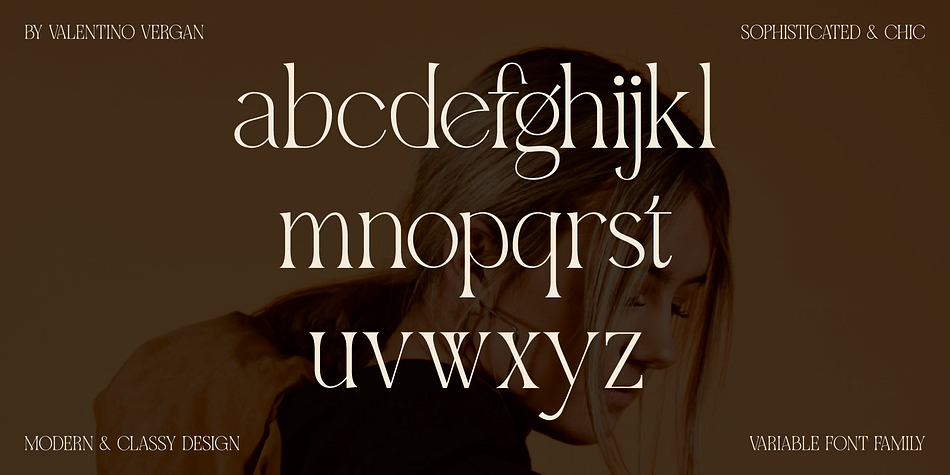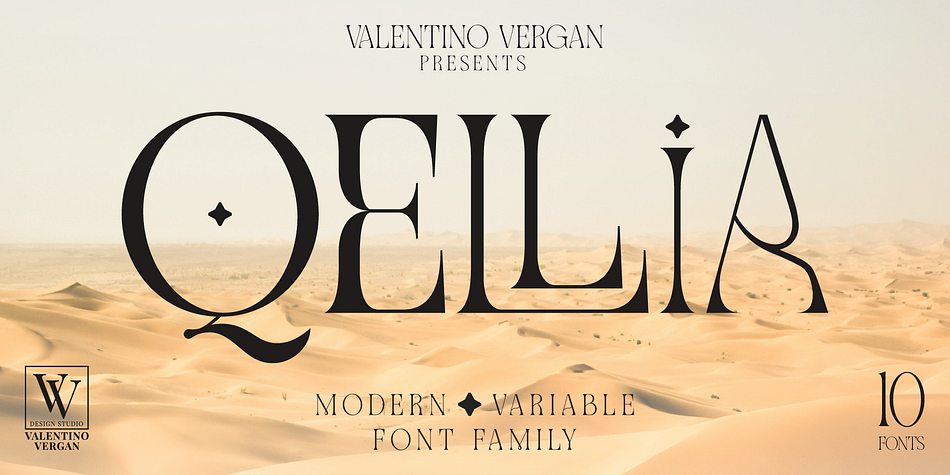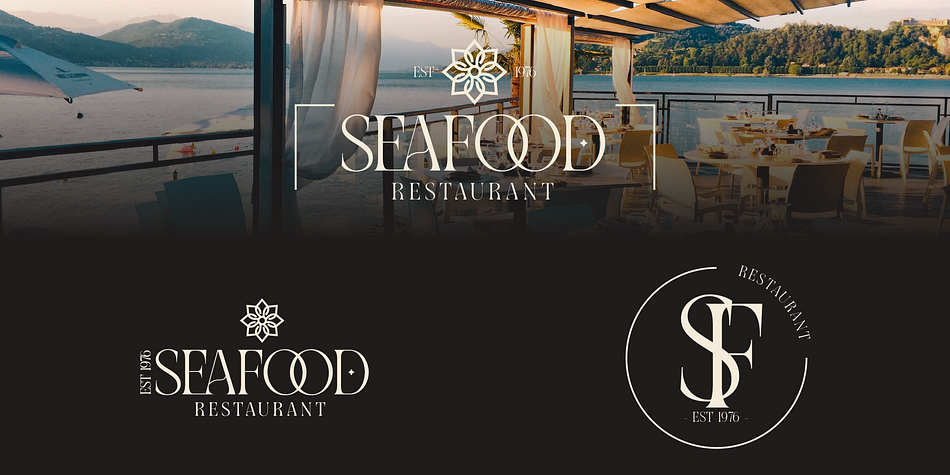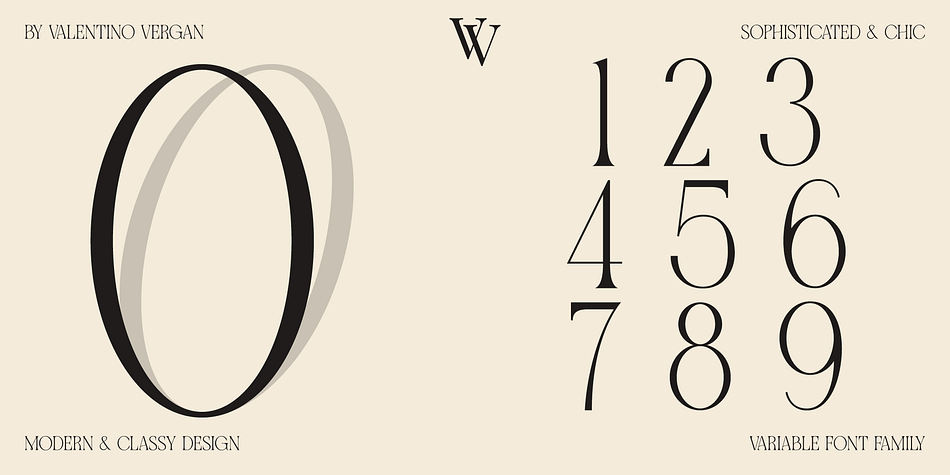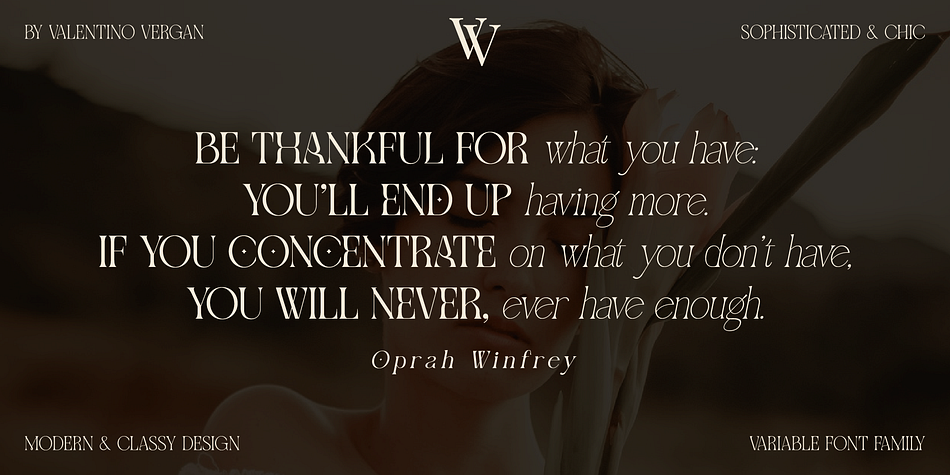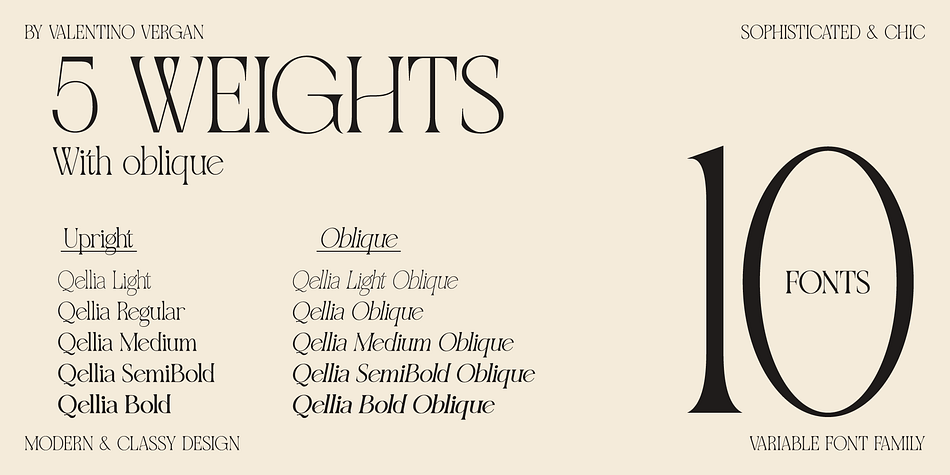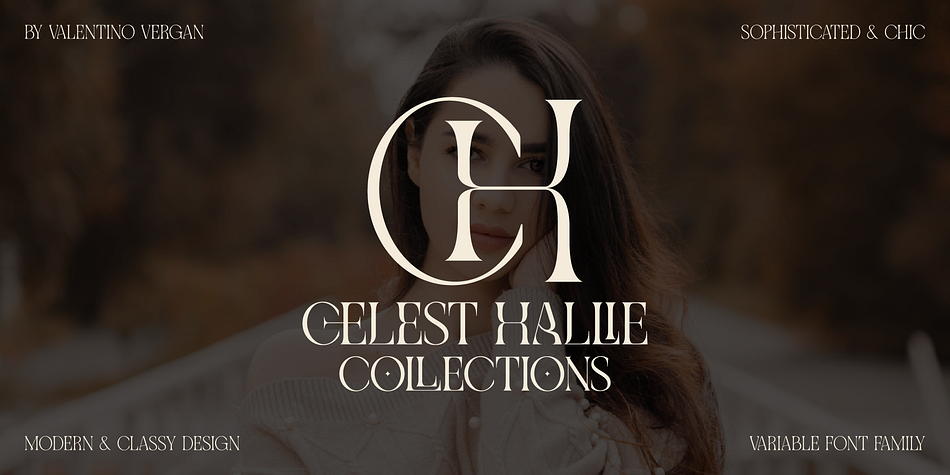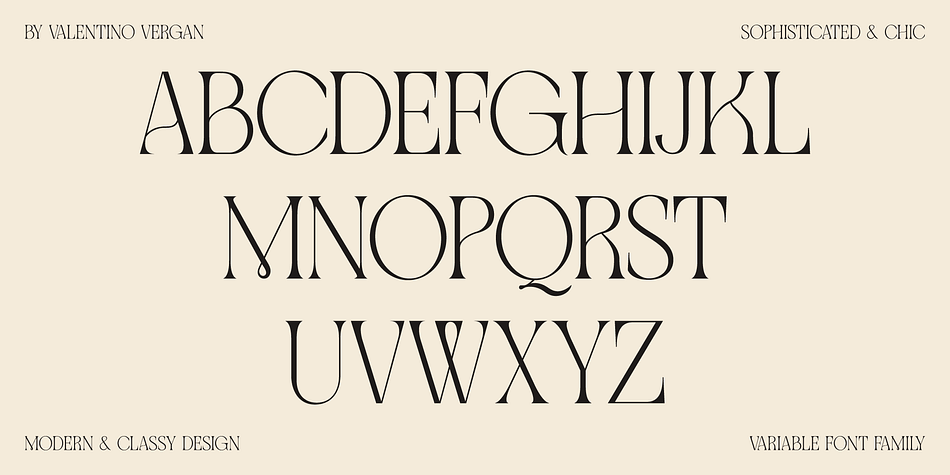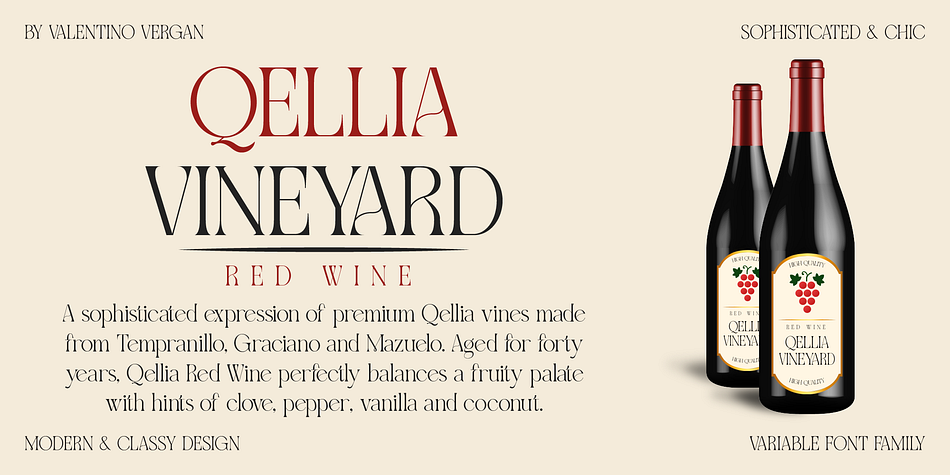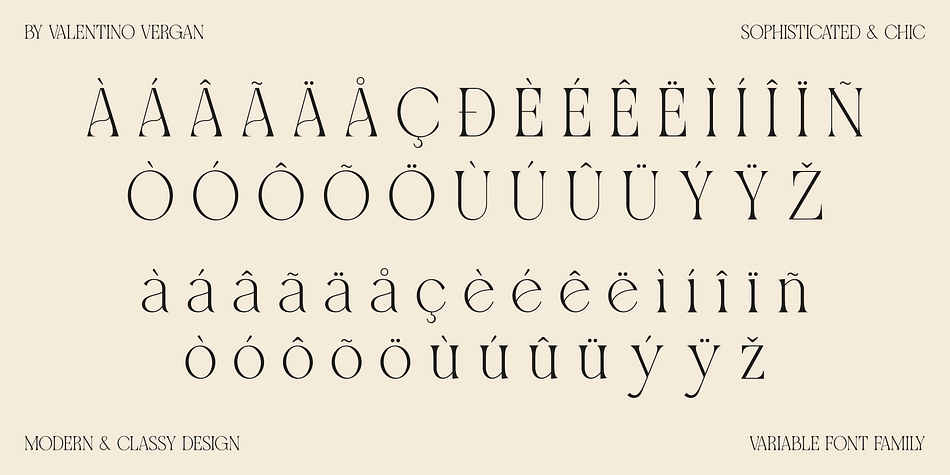
Qellia
Designed by Martin Katibi, Qellia is an art nouveau and display serif font family. This typeface has eleven styles and was published by Valentino Vergan.
Qellia is a beautifully refined variable serif font family that blends classic elegance with a modern sensibility. With its high contrast strokes, graceful curves, and crisp serifs, Qellia brings sophistication to any project—while its variable font capabilities offer the freedom to fine-tune weight and style to perfection.
Designed for designers, brands, and creatives who crave both versatility and beauty, Qellia is a true workhorse for editorial design, fashion branding, luxury packaging, and standout digital experiences.
Whether you’re building a high-end magazine layout or crafting a premium visual identity, Qellia delivers typographic expression with style and precision.
PERFECT FOR:
Luxury branding & fashion
Editorial design & publishing
Packaging & label design
Web & mobile experiences
High-end advertising
Timeless. Elegant. Infinitely flexible. Qellia is the serif you’ve been waiting for.